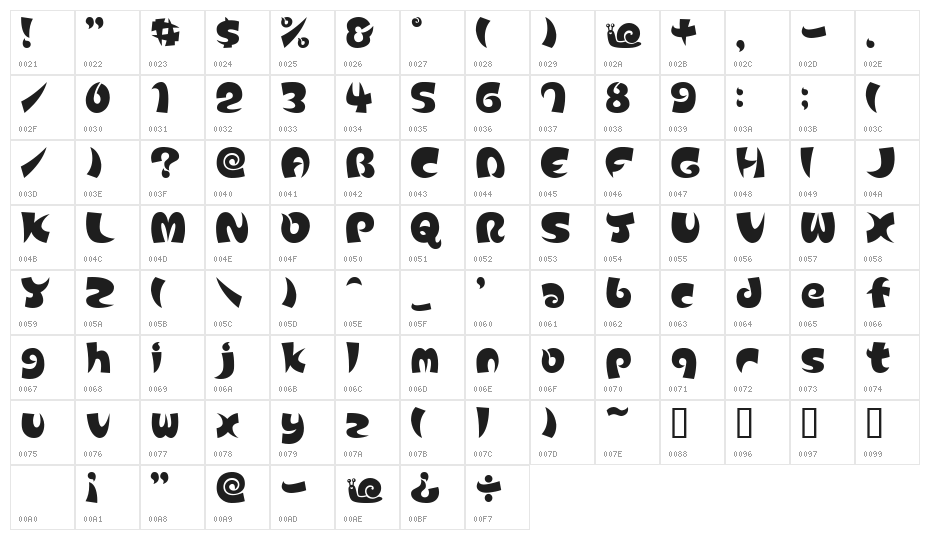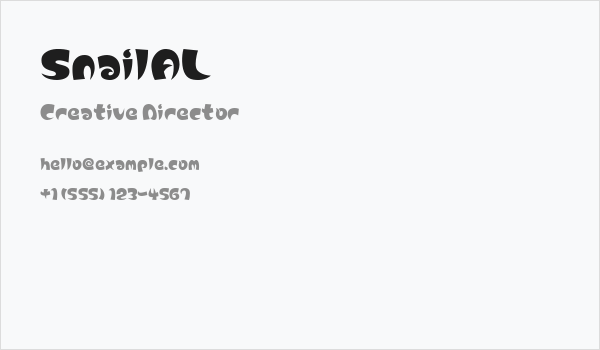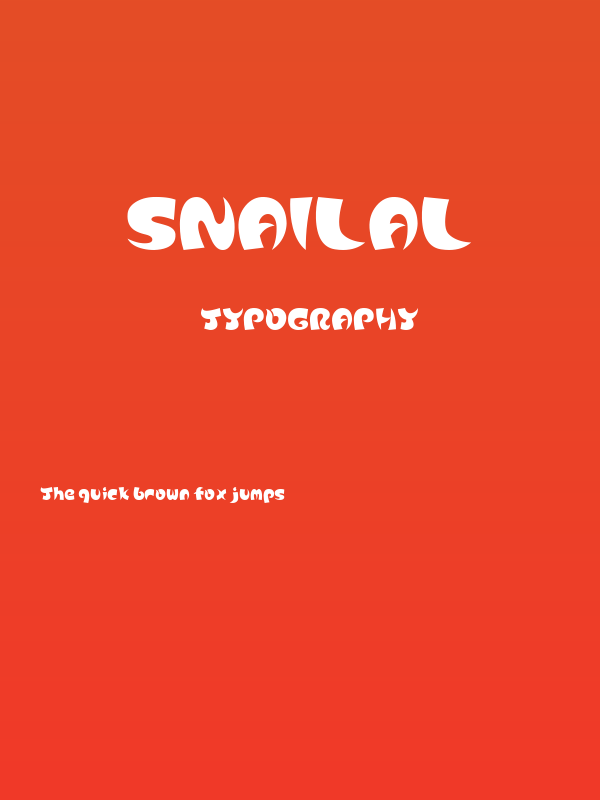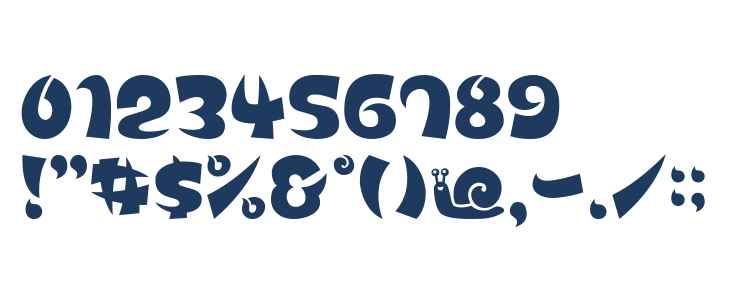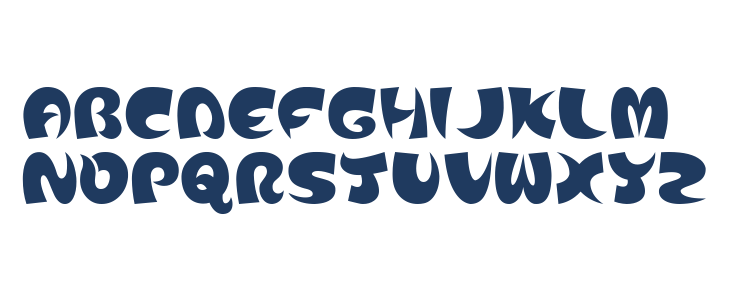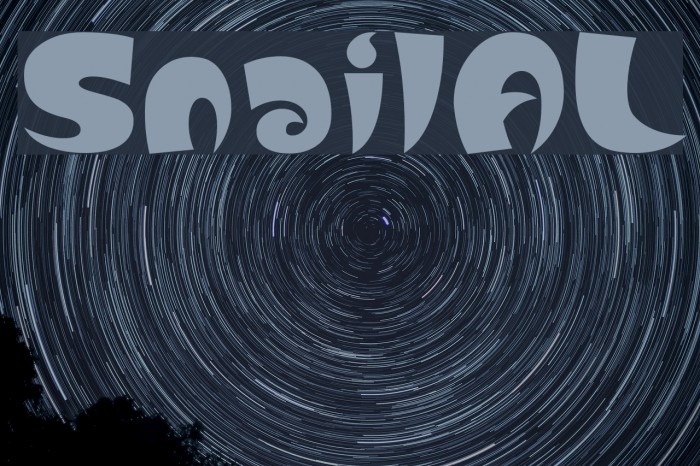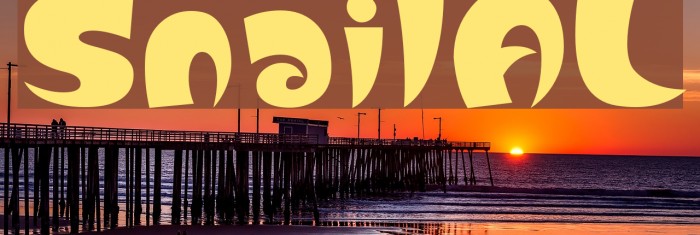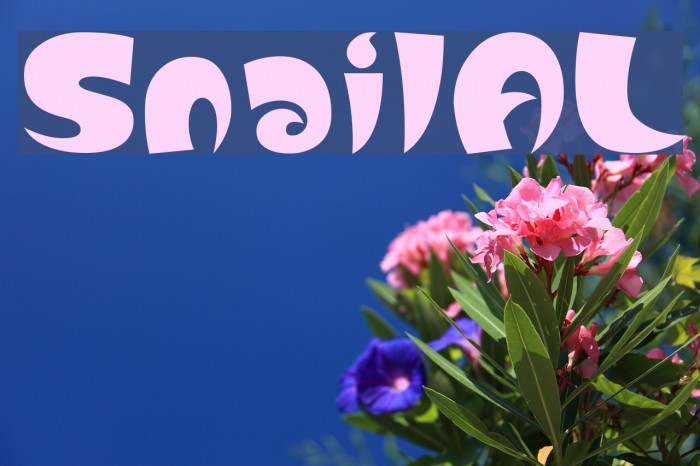
SnailAL Font
SnailAL Description
This playful and whimsical font features bold, rounded characters with a unique, quirky style. Each letter has a distinct personality, with exaggerated curves and varying stroke widths that create a lively and dynamic appearance. The font includes both uppercase and lowercase letters, numerals, and a variety of special characters. Its bold presence and artistic flair make it stand out, perfect for creative projects that require a touch of fun and originality. The characters are well-spaced, ensuring readability while maintaining their distinctive charm.
| Overall Style | Whimsical, Playful, Artistic |
| Proposed Projects | Ideal for children's books, playful branding, party invitations, and creative posters. |